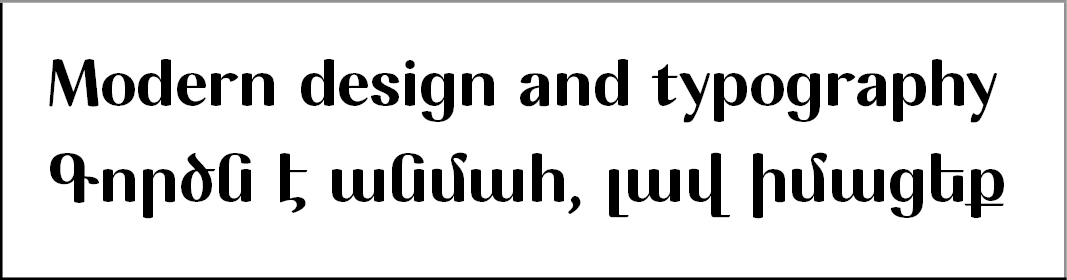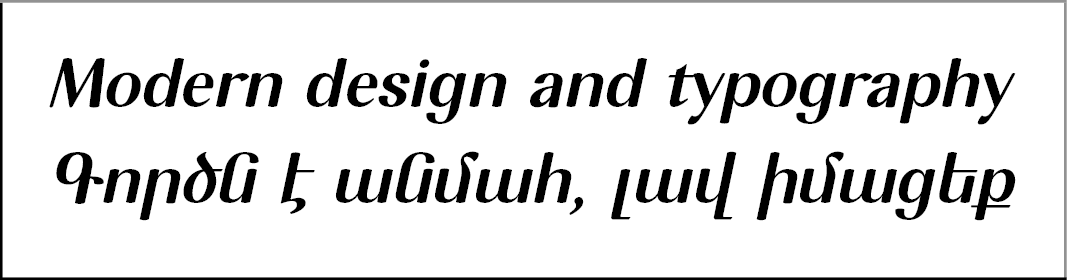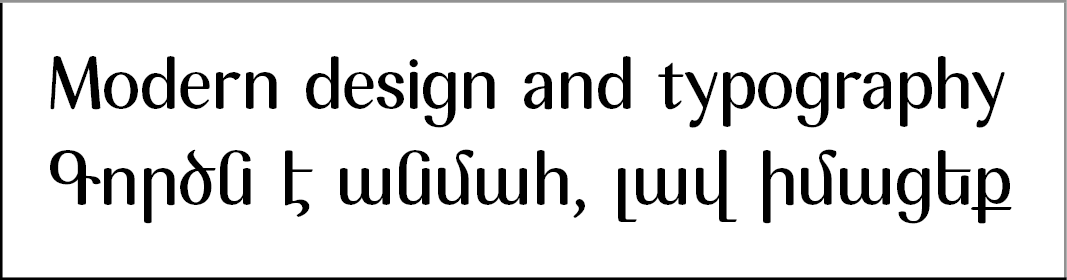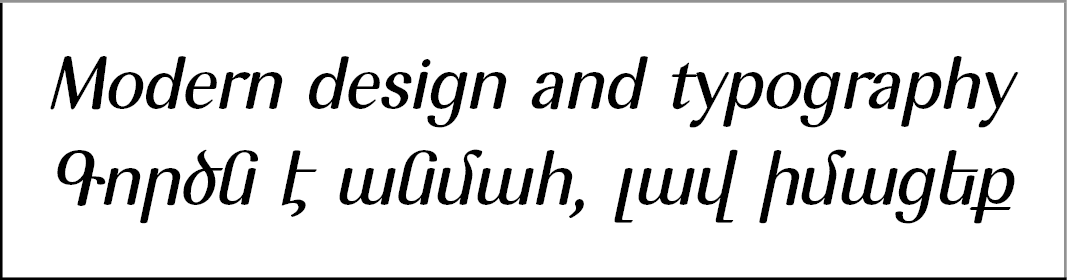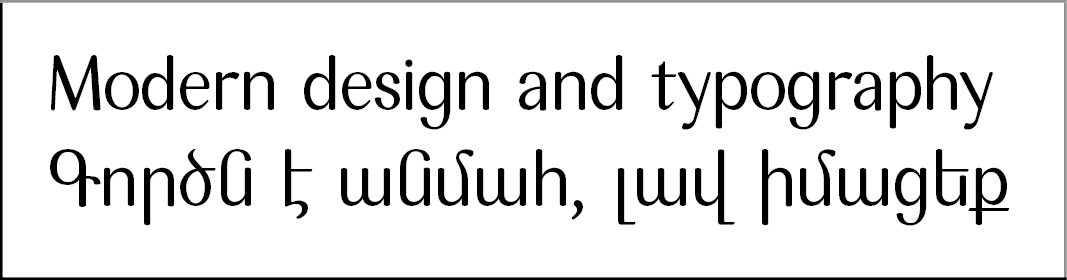
Angela Poghosova, Sans-Serif Typefaces
Designer: Angela Poghosova
Design date: 2017
The font family includes Latin and Armenian alphabet systems.
To be used in texts.